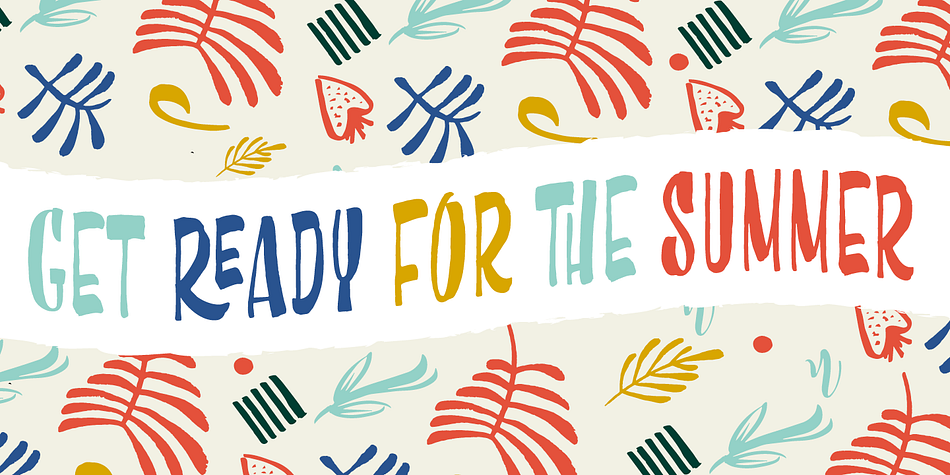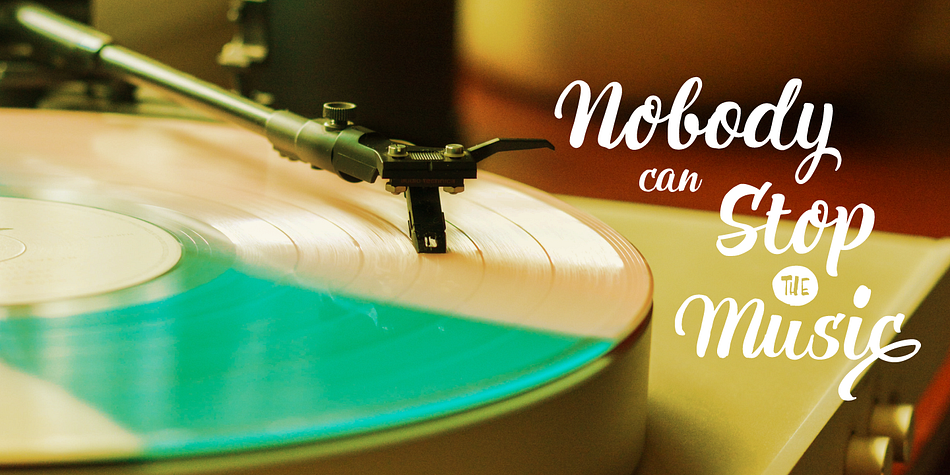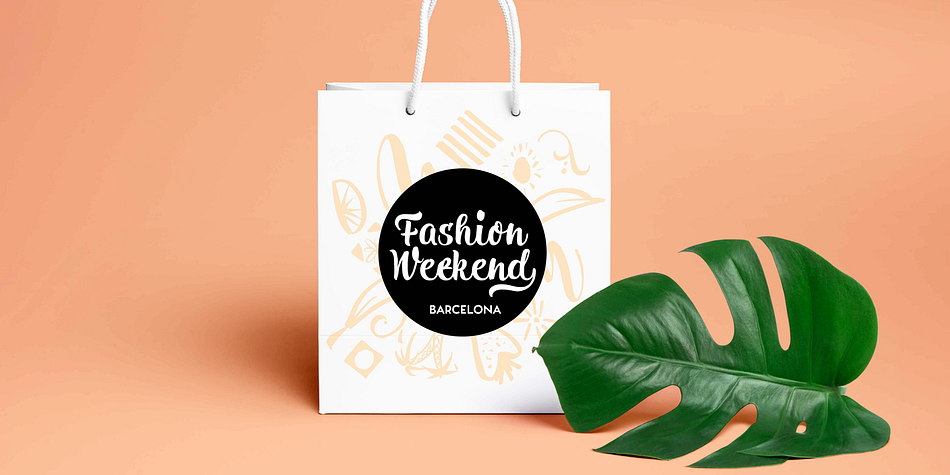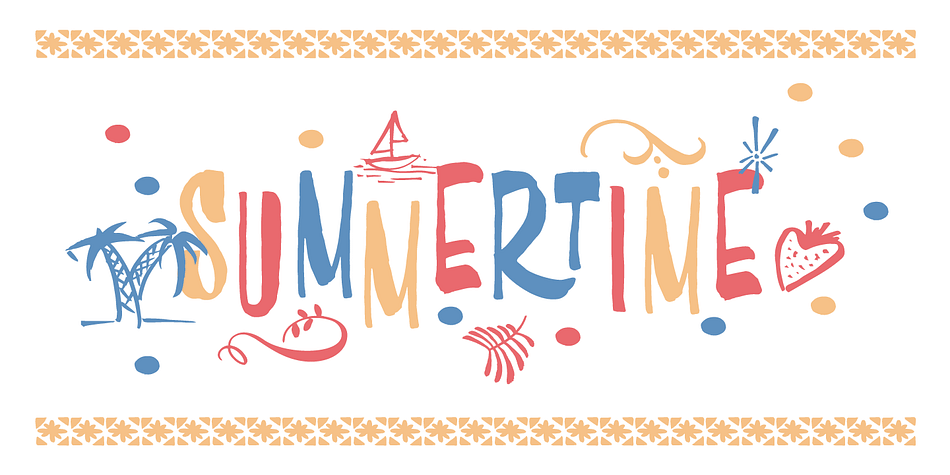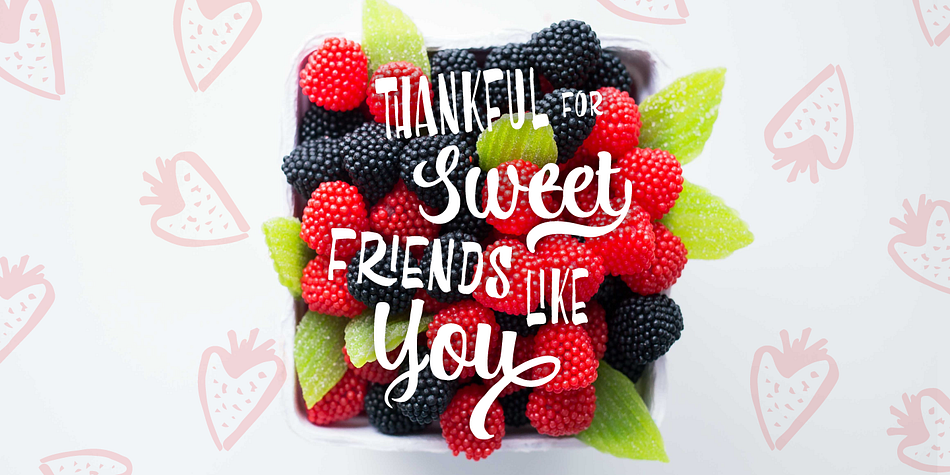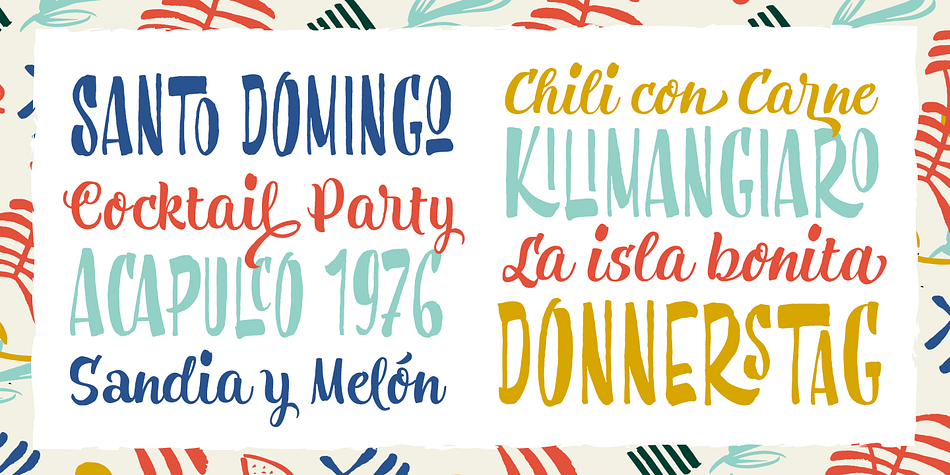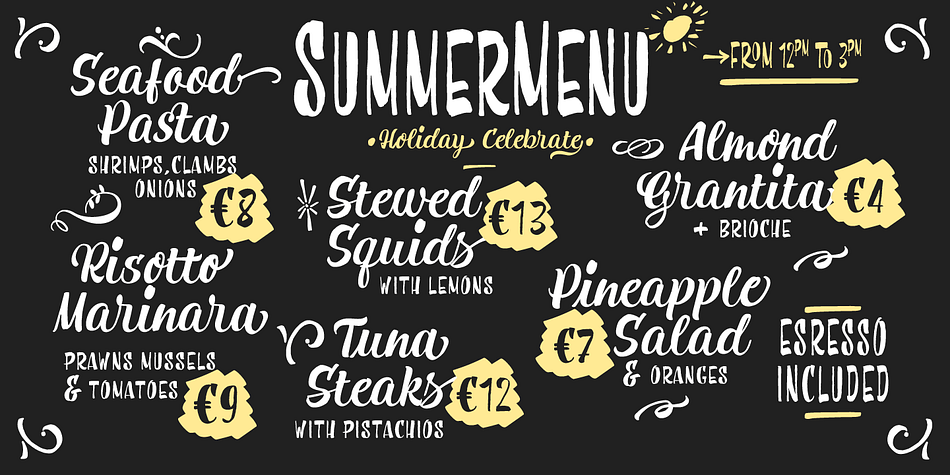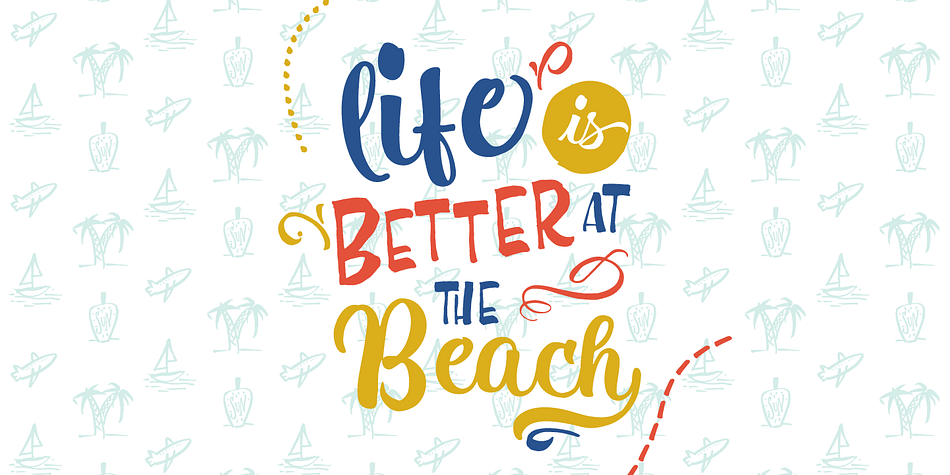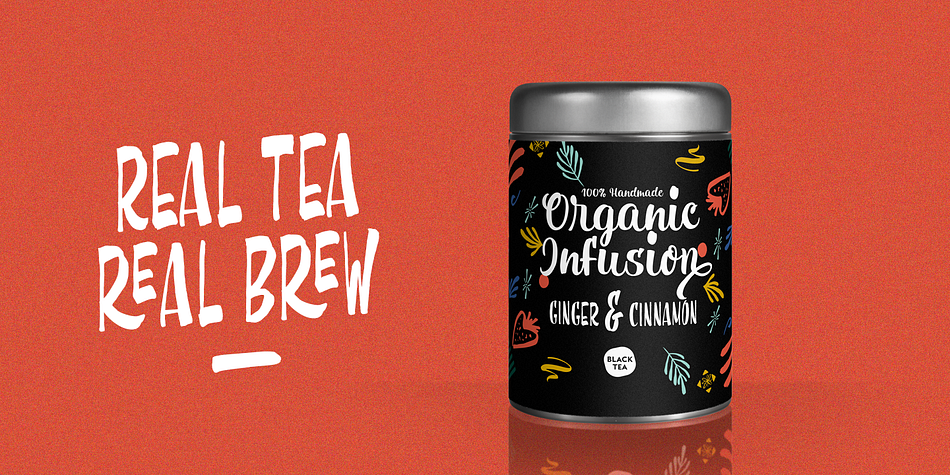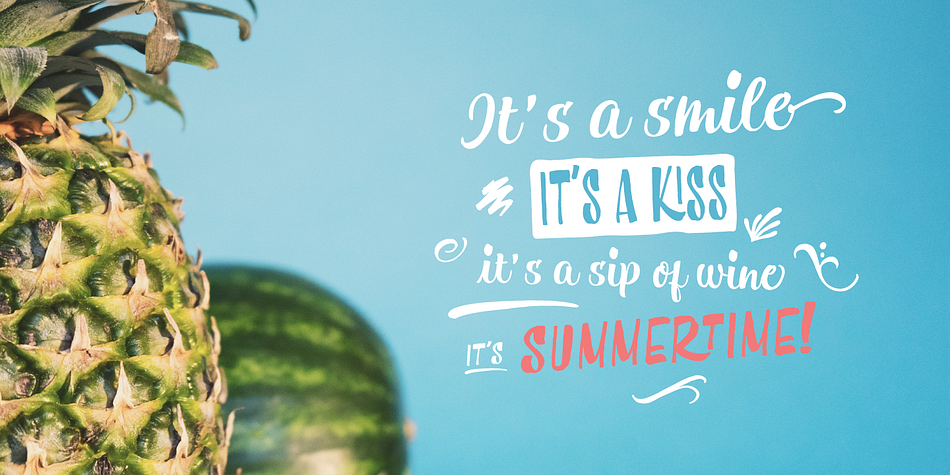
Beach Please is a multiple classification font family. This typeface has seven styles and was published by Resistenza.es.
Beach Please is a suite of fonts designed with pointed brush and watercolours. Beach Please Script is a relaxed and tender brush, a bit inspired by sign painting. The caps have a bizarre look because of the reversed contrast on some letters. We have a slanted, wide version for each weight.
A set of tropical and fruity icons is also available and as you can see on the flags it adds more value to the whole graphic layouts.